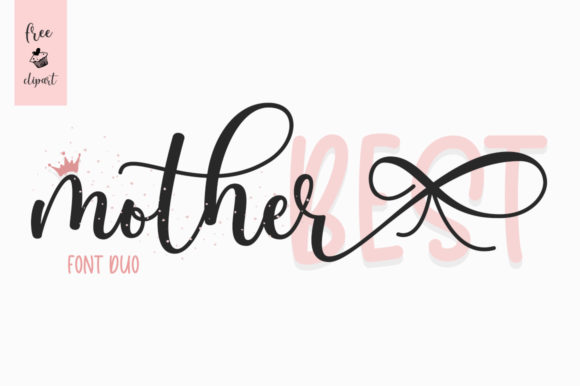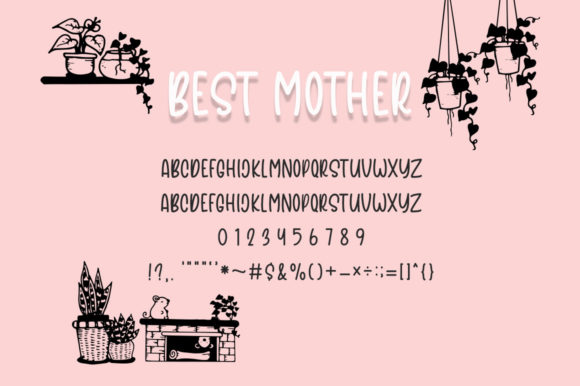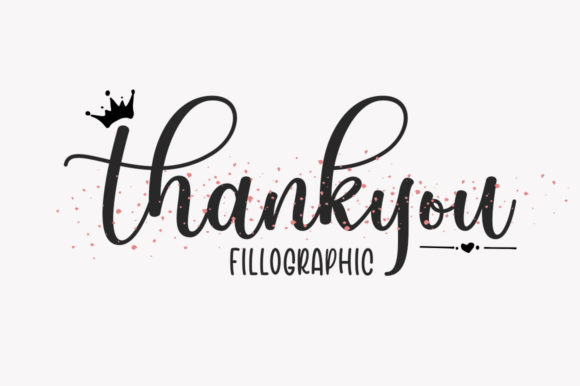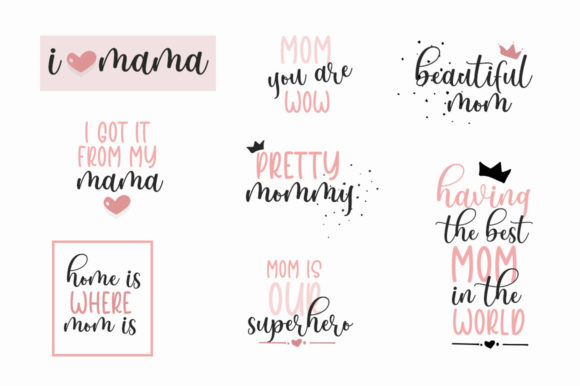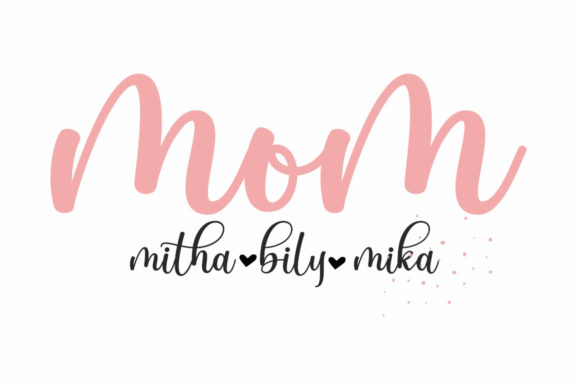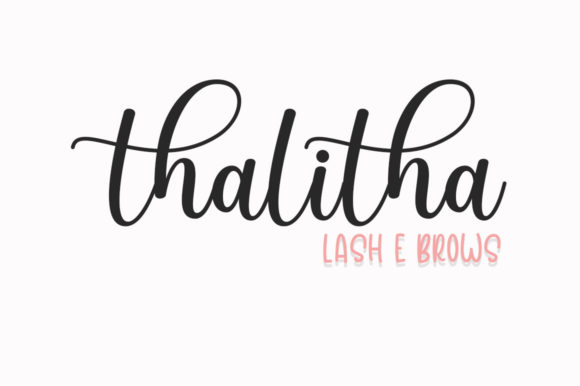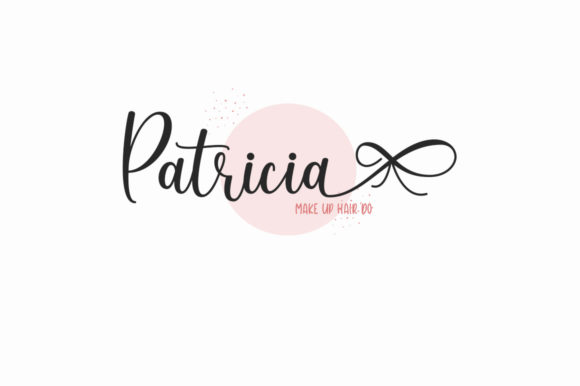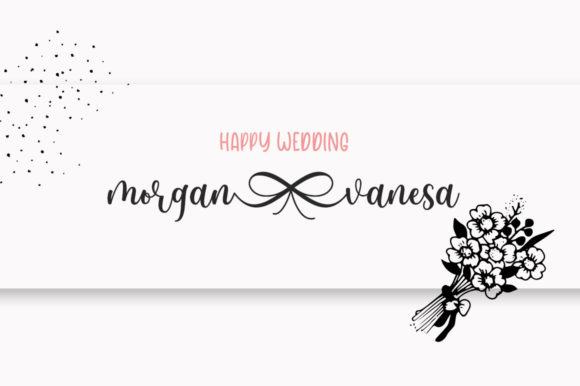
Mother Font
About Mother Font
Mother is a delightful and versatile font duo that offers a harmonious combination of two distinct typefaces, designed to effortlessly complement each other. Whether used in tandem or individually, these fonts bring a chic and cheerful vibe to your creative projects, adding a touch of elegance and playfulness.
The first font in the duo exudes sophistication and charm. Its clean lines and well-balanced characters make it an excellent choice for conveying messages with clarity and grace. Whether you’re designing invitations, crafting headlines, or creating branding materials, this font’s refined appearance lends a touch of elegance to your work.
The second font, while equally elegant, introduces a playful and whimsical element to the duo. Its unique and artistic strokes add a cheerful and lighthearted flair to your designs. This font is perfect for adding eye-catching details, creative accents, or decorative elements that enhance the overall visual appeal of your projects.
When used together, the Mother font duo creates a harmonious and captivating interplay between the two typefaces. This combination allows you to achieve a balanced and cohesive design aesthetic that captures attention and exudes a chic and cheery vibe. Whether you’re working on greeting cards, social media graphics, or packaging designs, the complementary nature of these fonts ensures a stunning and memorable result.
What makes Mother even more versatile and user-friendly is its PUA encoding. This feature allows you to access a wide range of alternate glyphs, ligatures, and swashes with ease, giving you the creative freedom to customize and personalize your designs to perfection.
In summary, Mother is a font duo that brings together elegance and playfulness, offering a chic and cheery touch to your creative endeavors. Its versatile nature and PUA encoding make it a valuable tool for designers seeking to create captivating and personalized designs that leave a lasting impression.